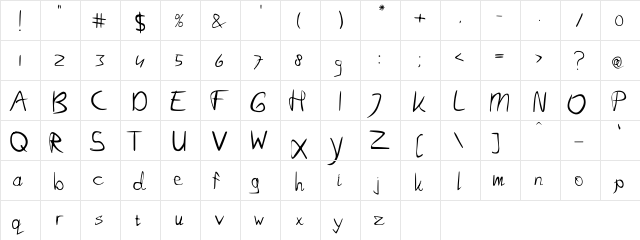
BlaiseHand 2.0 Regular
Design Context for BlaiseHand 2.0 Typeface
BlaiseHand 2.0 flows with the natural rhythm of handwritten lettering, making it ideal for designs that call for warmth and personal expression.
Font Pairing: Combine BlaiseHand 2.0 with a simple geometric sans for maximum contrast — the tension between flowing curves and clean structure is a classic typographic pairing.
Pro Tip: Use BlaiseHand 2.0 for short runs of text — names, titles, or taglines. Extended body copy in script faces tires the eye quickly.